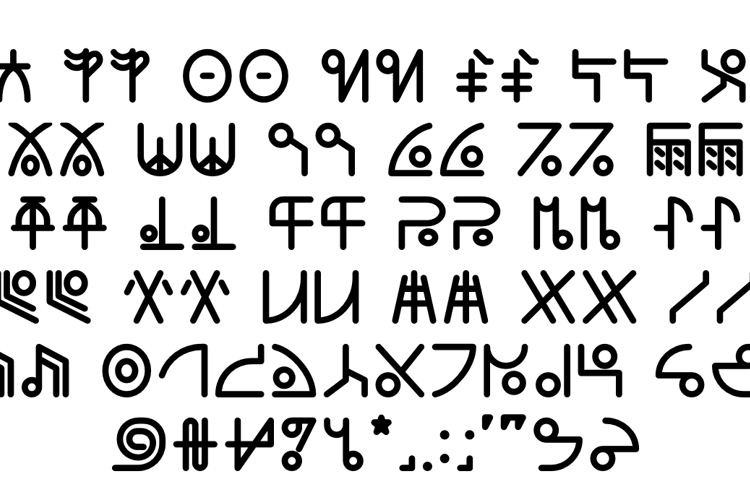
Alien Alphabet Font
Alien Alphabet is an unusual font made of wacky spirals and shapes.Alien Alphabet is a space font from the future. "HELLO HUMANS, I AM AN ALIEN."
4 years agoand also, the letter m looks like the word "rain" in chinese: 雨